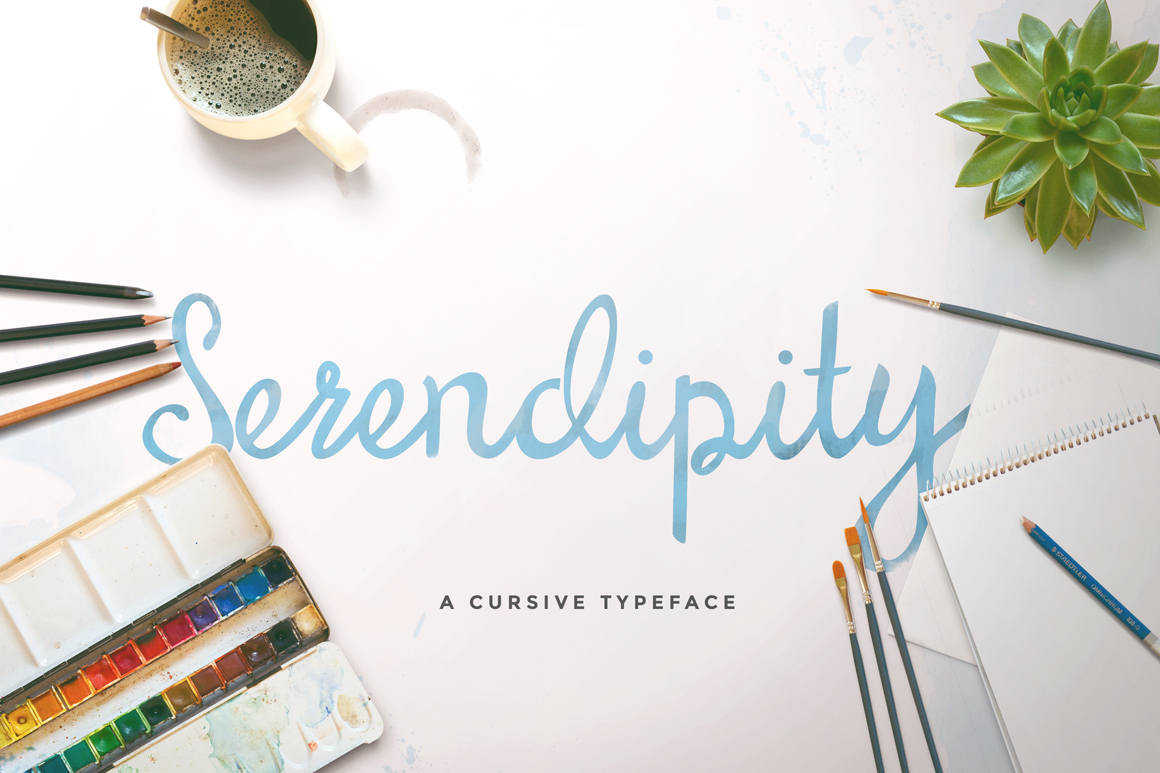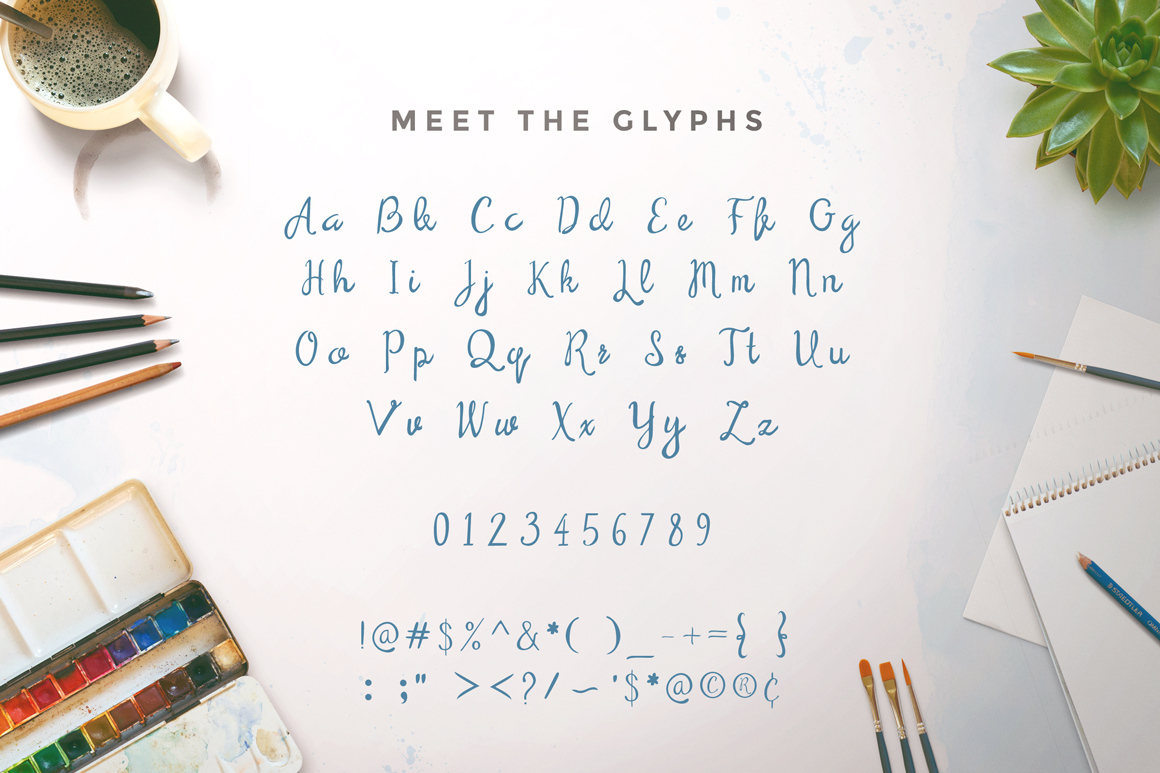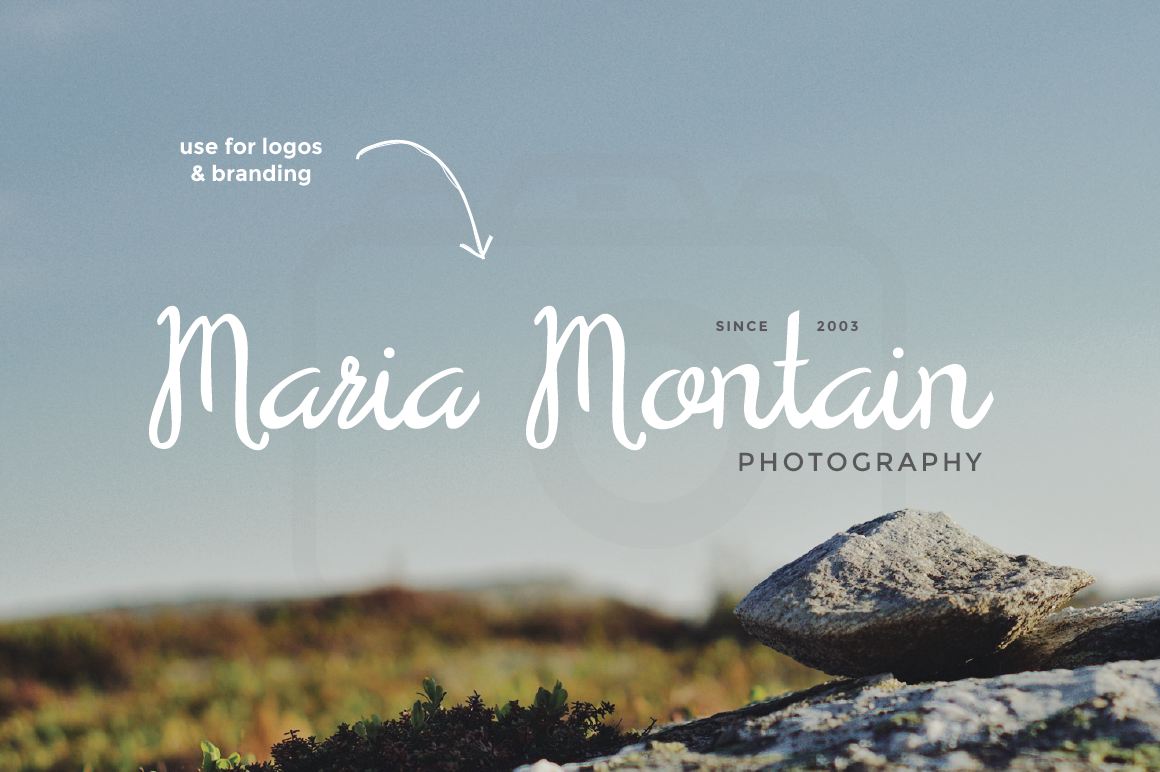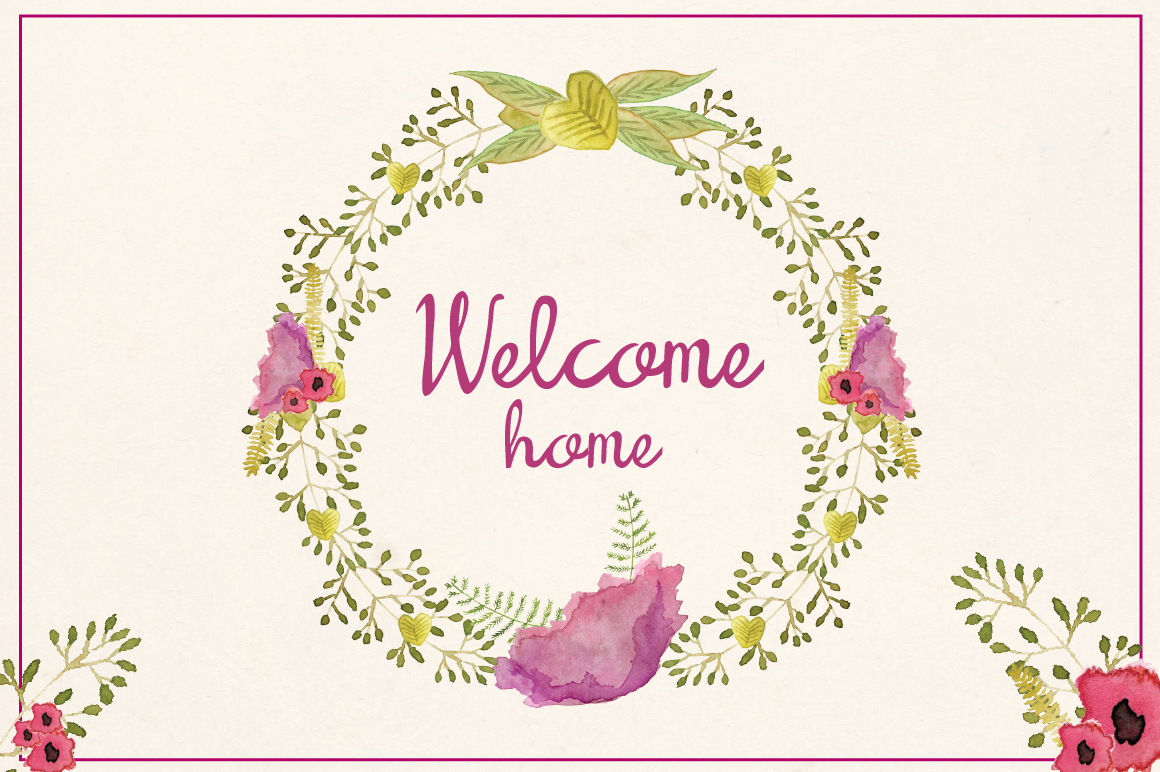
Serendipity Font
About Serendipity Font
Serendipity is a cute, cursive font that looks adorable on soft and lighthearted designs. This font has different glyphs for maximizing your typographic design potential.